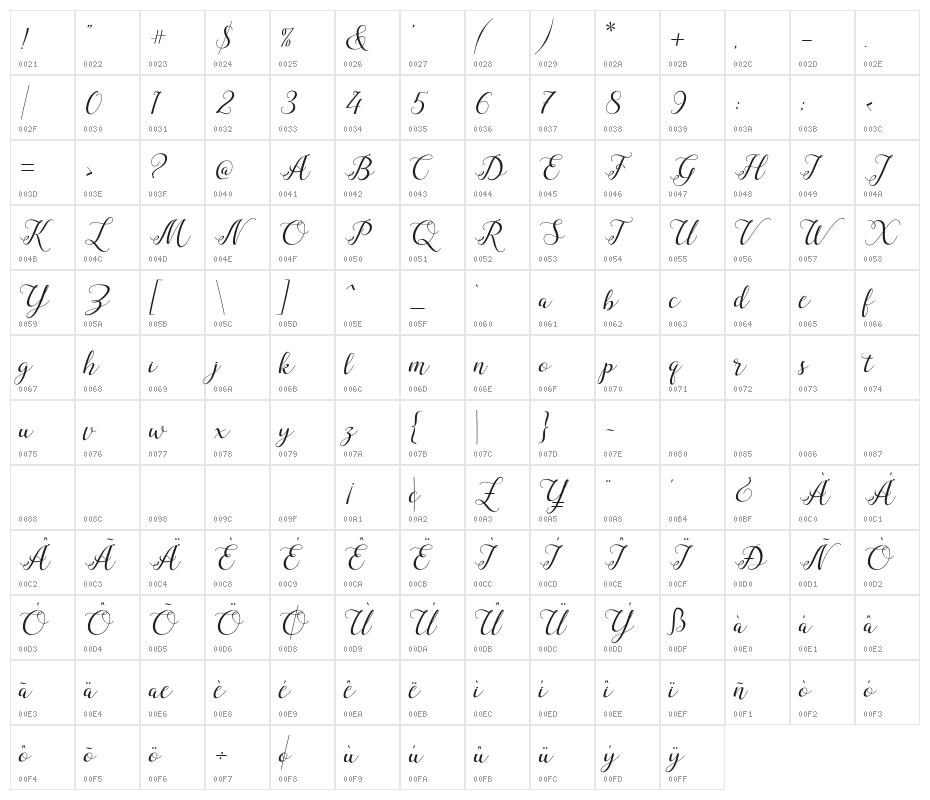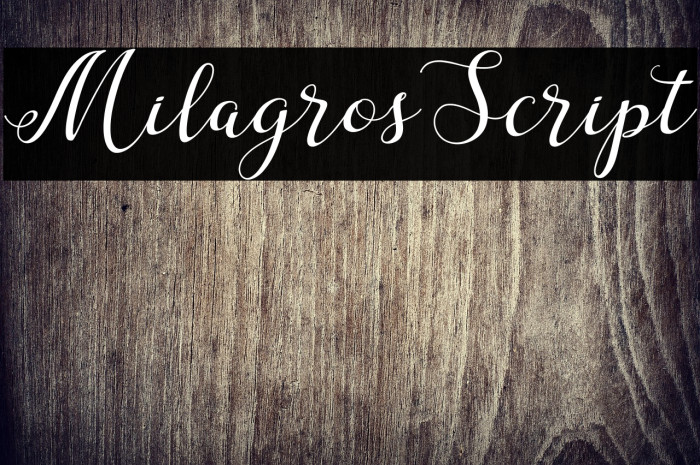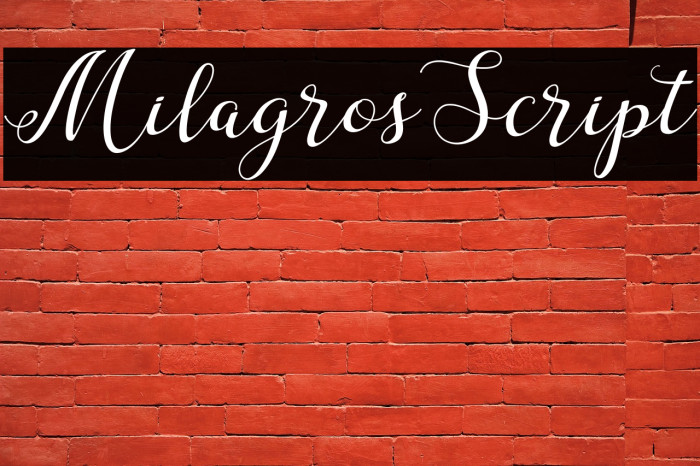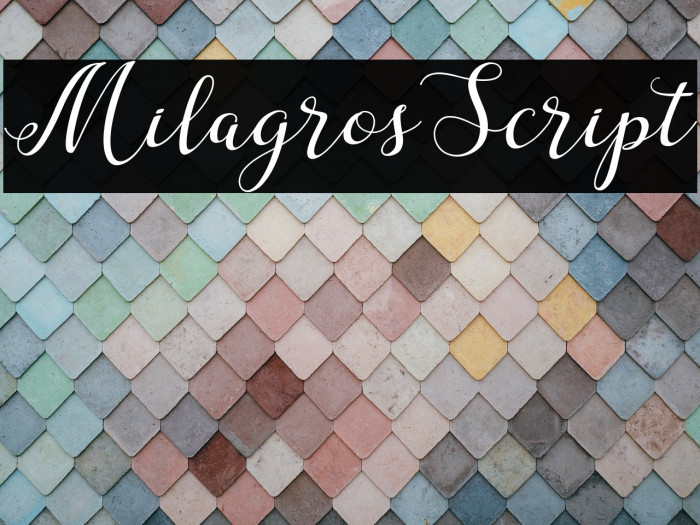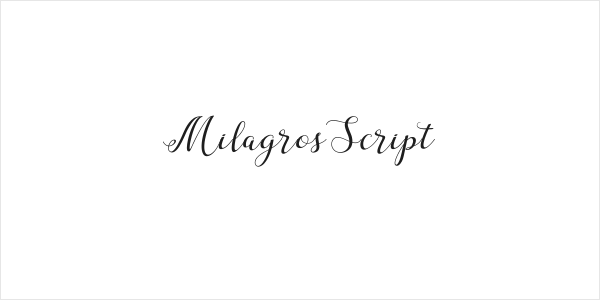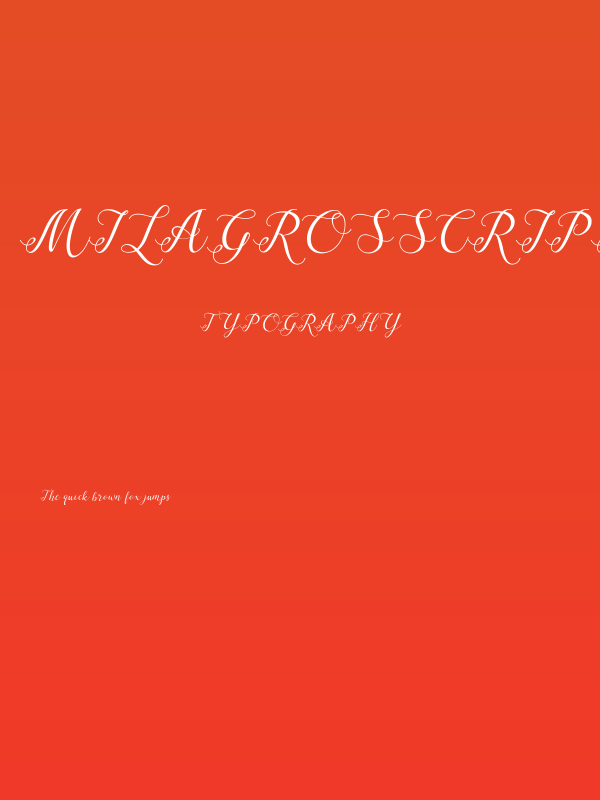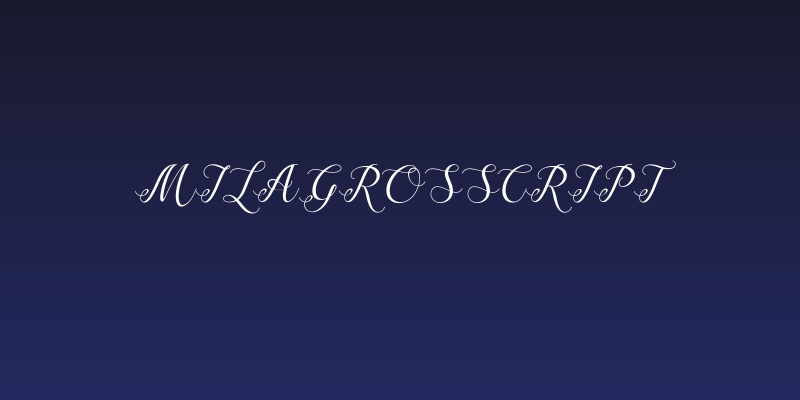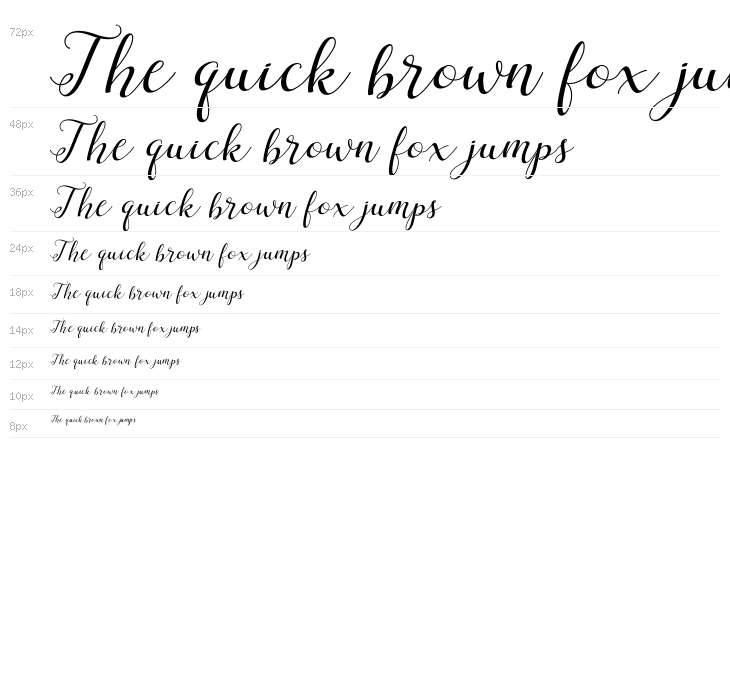
MilagrosScript Font
MilagrosScript Description
This elegant script font features flowing, interconnected letters with ornate swashes and flourishes, giving it a sophisticated and artistic appearance. The uppercase letters are particularly decorative, with intricate loops and curls that enhance their visual appeal. The lowercase letters maintain a graceful and fluid style, complementing the uppercase with their smooth curves and delicate strokes. The numerals are consistent with the overall script style, featuring slight embellishments that add to the font's charm. Special characters are designed with the same attention to detail, ensuring a cohesive look across all glyphs. This font is perfect for projects that require a touch of elegance and creativity.
| Proposed Projects | Ideal for wedding invitations, greeting cards, branding, and elegant packaging designs. |